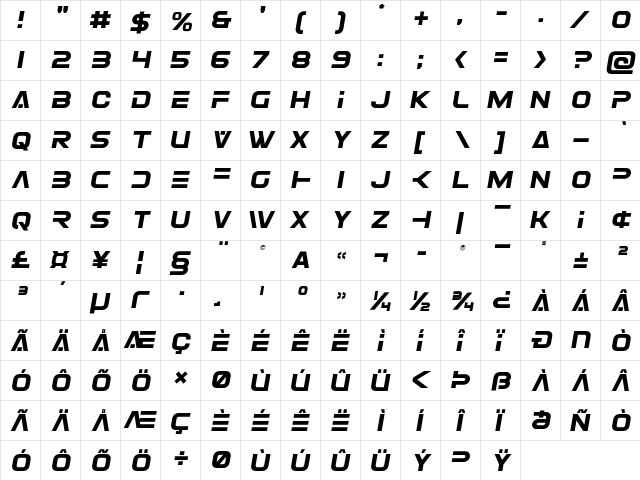
Eurofighter Semi-Italic Semi-Italic
Design Context for Eurofighter Semi-Italic Typeface
Eurofighter Semi-Italic takes a measured approach to typography — its balanced proportions and neutral character make it a reliable workhorse for both digital and print work. The slanted form adds forward momentum and visual energy.
Pro Tip: Use Eurofighter Semi-Italic for emphasis, pull quotes, and subheadings where its slanted energy can add rhythm to the layout.